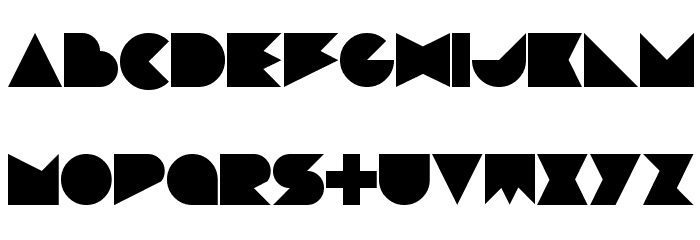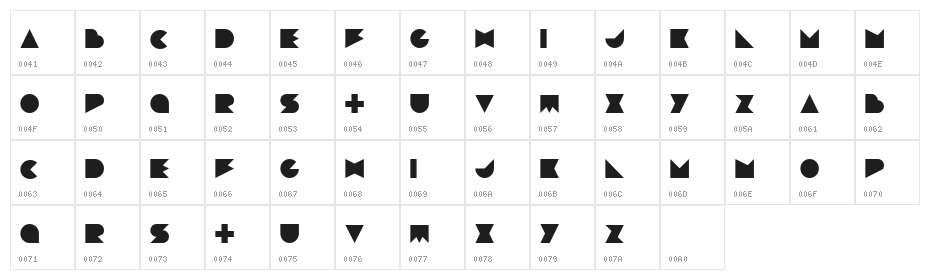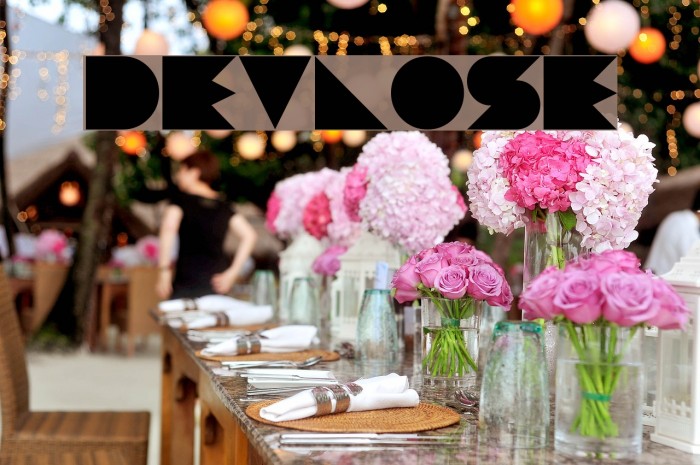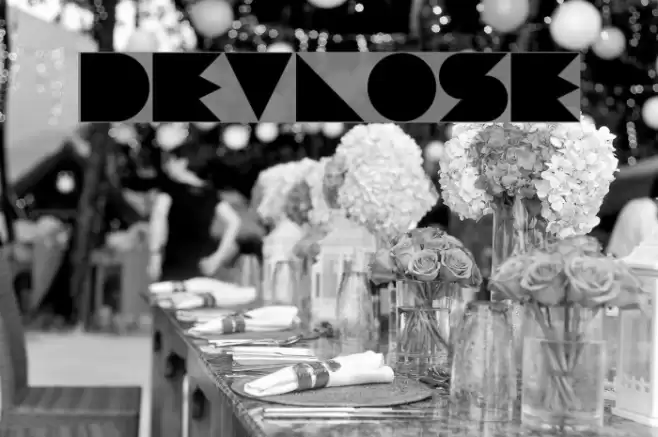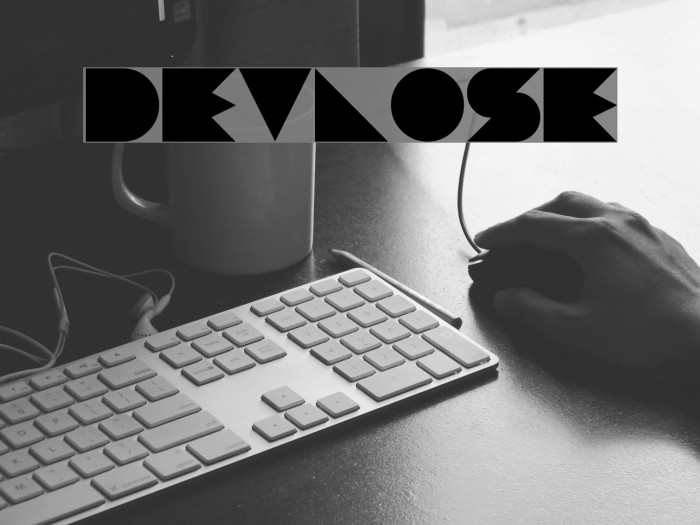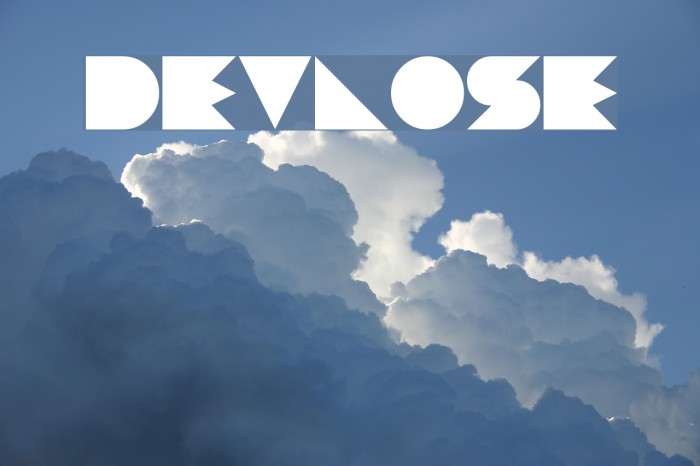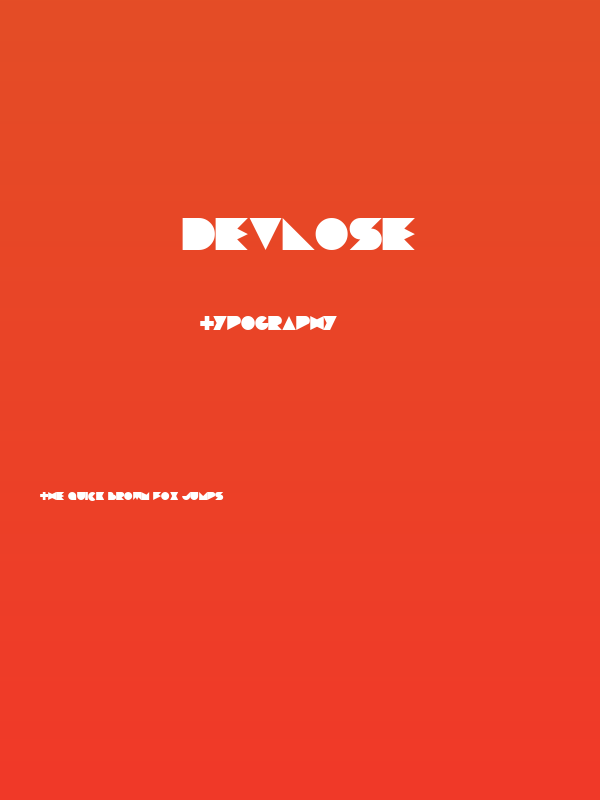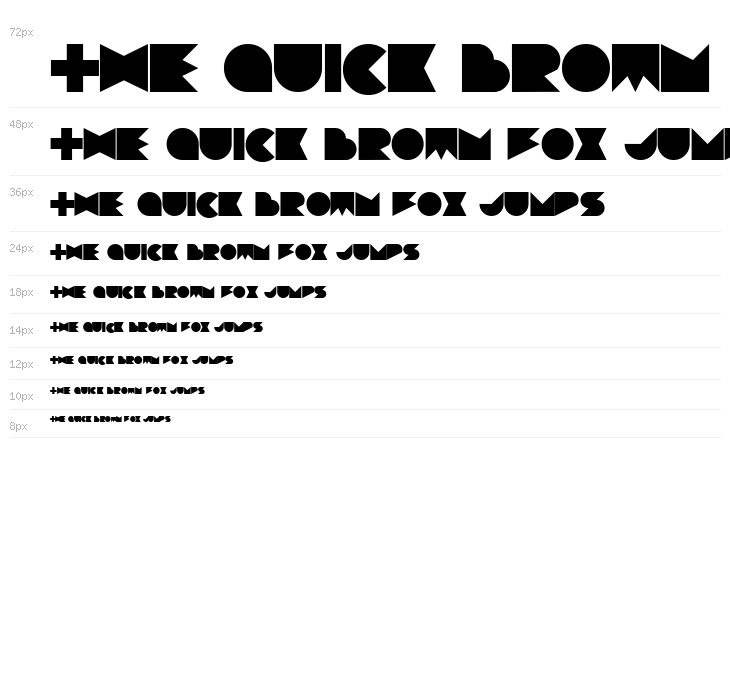
Devlose Font
Devlose Description
This font features a bold and geometric design, characterized by sharp angles and a strong presence. The uppercase letters are crafted with a mix of triangular and circular shapes, creating a dynamic and modern aesthetic. The font's unique style is further emphasized by its consistent use of thick strokes and angular cuts, giving it a distinctive and eye-catching appearance. The characters are tightly spaced, enhancing the boldness and impact of the text. This font is ideal for projects that require a strong visual statement, such as branding, posters, and headlines. Its modern and decorative style makes it suitable for creative and contemporary designs.
| Proposed Projects | Ideal for branding, posters, headlines, and creative designs. |